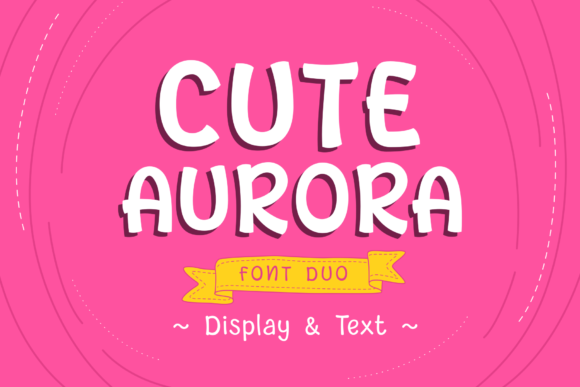
Cute Aurora Font: Elevate Your Crafting Projects with this Charming Display Font
Are you a designer or crafter looking for a unique and versatile font to elevate your projects? Look no further than Cute Aurora Font! This delightful display font is perfect for creating outstanding crafting projects that are sure to impress. In this article, we’ll dive into the features and benefits of Cute Aurora Font, and explore how you can use it to take your crafting projects to the next level.
What is Cute Aurora Font?
Cute Aurora Font is a great display font that comes in two styles: display and text. This dual-style font offers the perfect combination of elegance and playfulness, making it ideal for a wide range of crafting projects. Whether you’re creating handmade cards, scrapbooking pages, or DIY decorations, Cute Aurora Font is sure to add a touch of charm and personality to your work.
Key Features of Cute Aurora Font
• Dual-style font: Cute Aurora Font comes in two styles, display and text, allowing you to mix and match to create unique and visually appealing projects.
• Easy to read: The text style of Cute Aurora Font is clear and easy to read, making it perfect for adding captions, quotes, or messages to your projects.
• Highly decorative: The display style of Cute Aurora Font is perfect for adding a touch of drama and flair to your projects, making it ideal for titles, headings, and other decorative elements.
• Versatile: Cute Aurora Font can be used for a wide range of crafting projects, from handmade cards and scrapbooking pages to DIY decorations and more.
Benefits of Using Cute Aurora Font
So why choose Cute Aurora Font for your crafting projects? Here are just a few benefits of using this charming display font:
• Adds a personal touch: Cute Aurora Font allows you to add a personal touch to your crafting projects, making them truly unique and special.
• Enhances creativity: The dual-style design of Cute Aurora Font encourages creativity and experimentation, allowing you to push the boundaries of your crafting projects.
• Time-saving: With Cute Aurora Font, you can create professional-looking crafting projects in no time, saving you time and effort.
Ideas for Using Cute Aurora Font
So what can you create with Cute Aurora Font? Here are just a few ideas to get you started:
• Handmade cards: Use Cute Aurora Font to create beautiful, one-of-a-kind handmade cards for special occasions.
• Scrapbooking pages: Add a touch of elegance and sophistication to your scrapbooking pages with Cute Aurora Font.
• DIY decorations: Use Cute Aurora Font to create custom decorations for your home, such as wall art, signs, and more.
• Party invitations: Create eye-catching party invitations with Cute Aurora Font, perfect for birthdays, baby showers, and other celebrations.
Tips for Getting the Most Out of Cute Aurora Font
To get the most out of Cute Aurora Font, here are a few tips to keep in mind:
• Experiment with different styles: Don’t be afraid to try out different combinations of display and text styles to create unique and visually appealing projects.
• Play with color: Cute Aurora Font looks great in a variety of colors, so don’t be afraid to experiment with different hues and shades.
• Add embellishments: Consider adding embellishments, such as glitter or stickers, to give your projects an extra touch of personality.